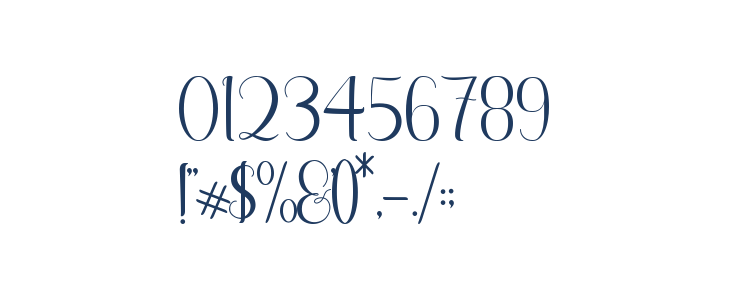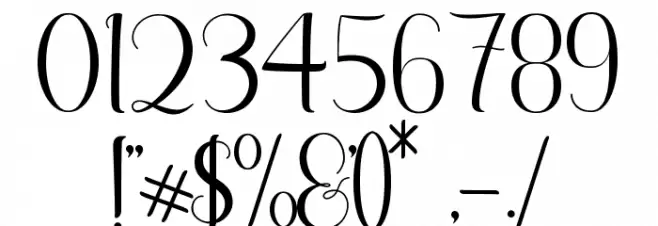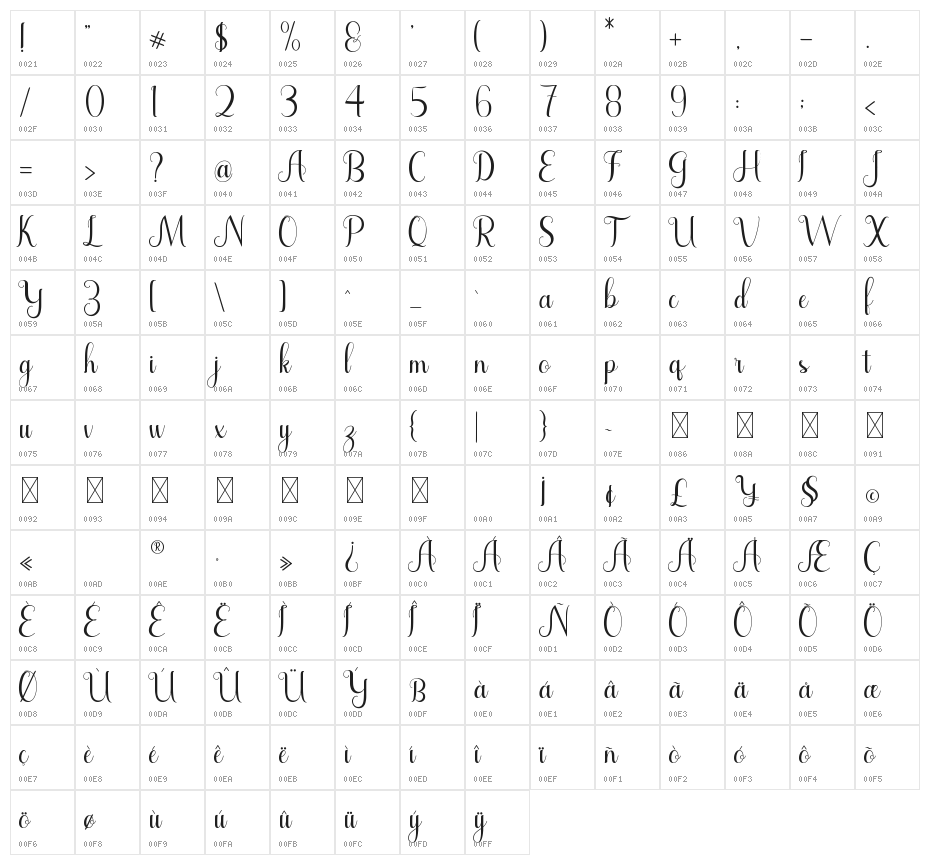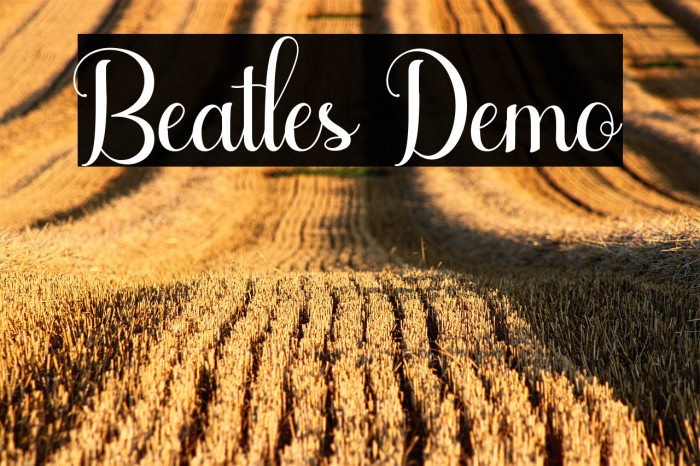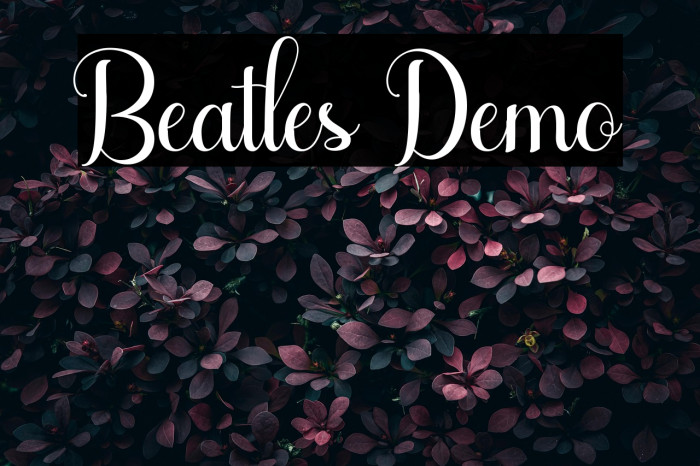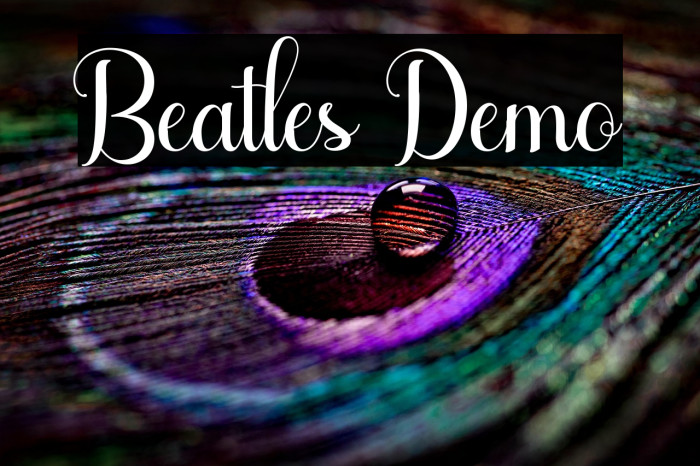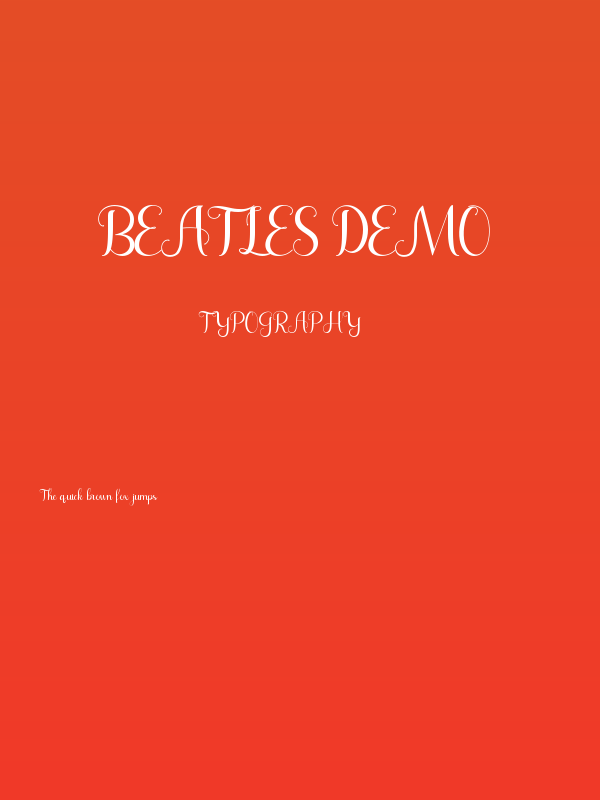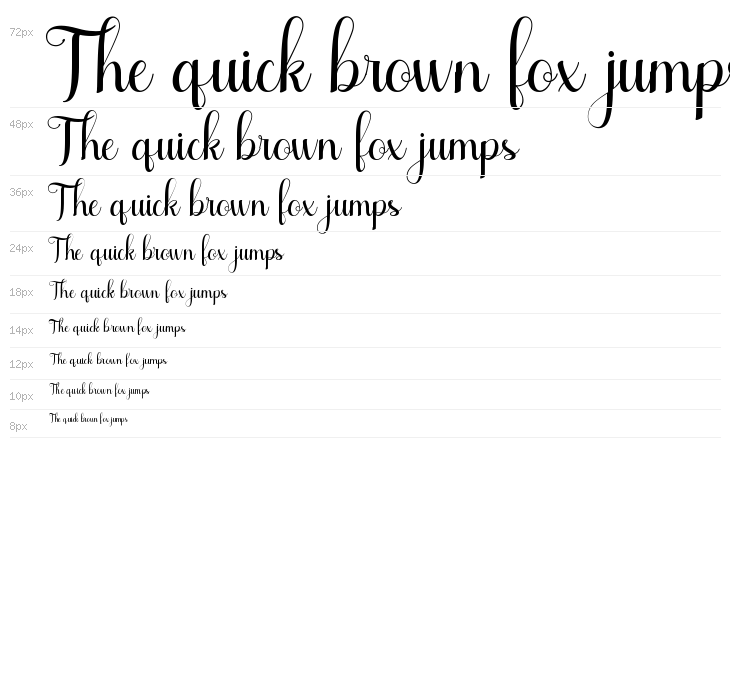
Beatles Demo Font
Beatles Demo Description
This font features a decorative and elegant script style with flowing curves and loops, giving it a sophisticated and artistic appearance. The uppercase letters are particularly ornate, with intricate swirls and flourishes that add a touch of elegance. The lowercase letters maintain a consistent style, with smooth, connected strokes that enhance readability while retaining the decorative flair. The numerals are designed to match the overall aesthetic, with a balance of curves and straight lines. Special characters are also included, maintaining the same decorative style, making this font versatile for various design needs.
| Proposed Projects | Ideal for wedding invitations, elegant branding, greeting cards, and decorative posters. |